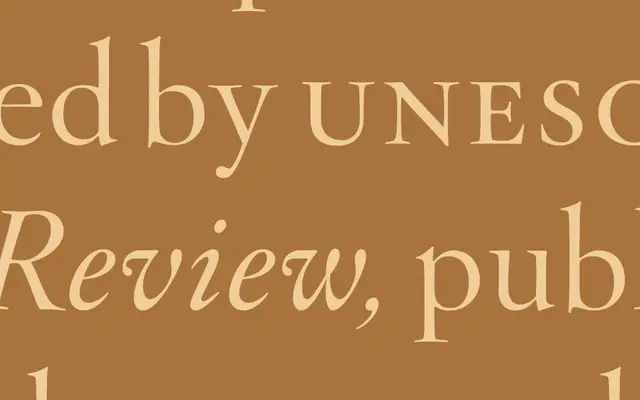
Hoefler Titling
Hoefler & Co · Jonathan Hoefler · 1996
The display cut of Hoefler Text, refined for titling on book jackets and editorial headlines.
A titling serif by Jonathan Hoefler that pairs with Hoefler Text but is drawn for large sizes. Finer hairlines, sharper serifs and tighter spacing make it suited to book jackets, magazine titles and brand wordmarks where the text family would feel too soft. Limited to a small set of weights and italics in keeping with its display role.
A display companion to Hoefler Text, drawn at large sizes for titling and refined for headlines and book jackets.